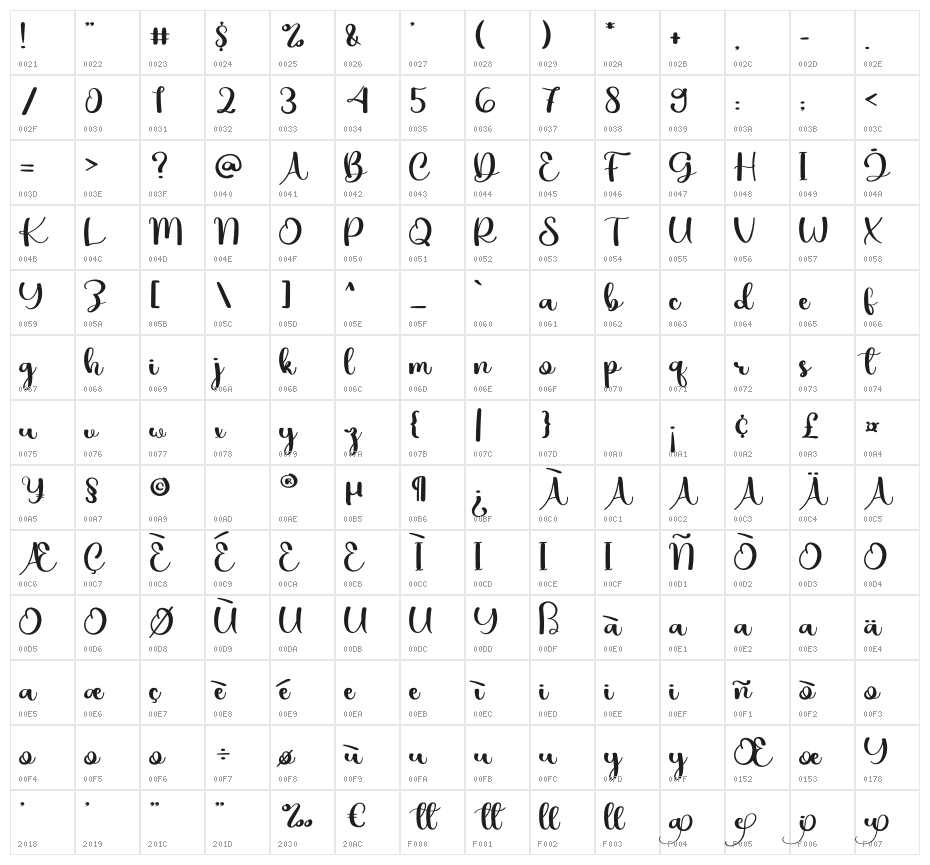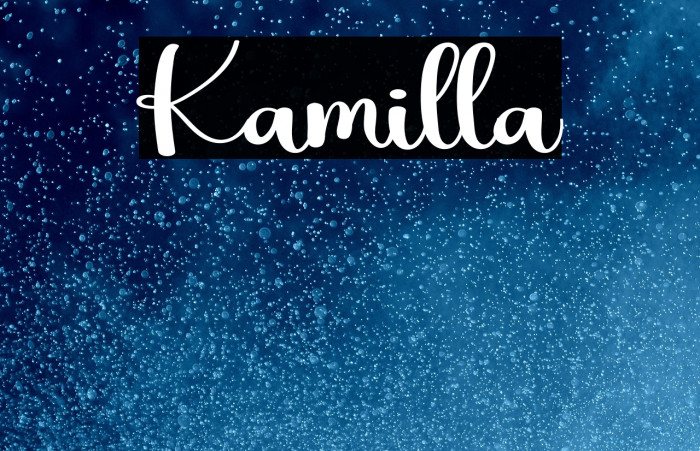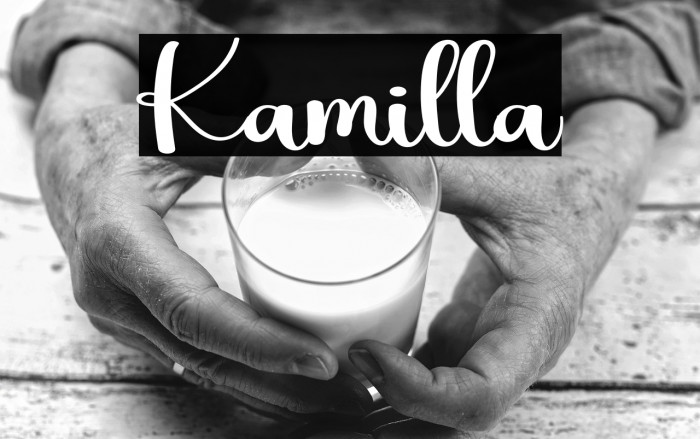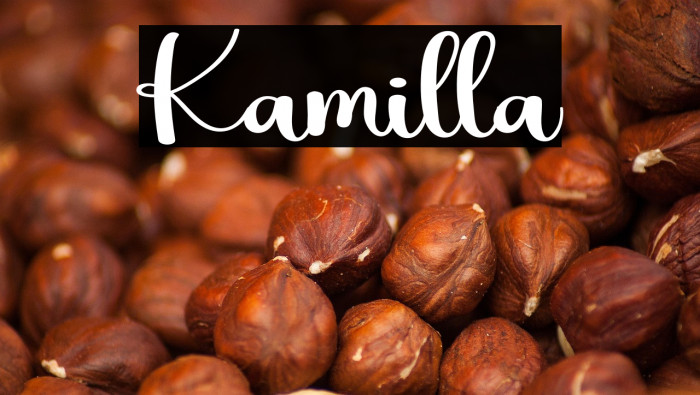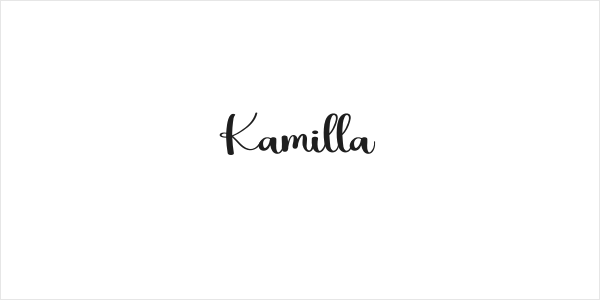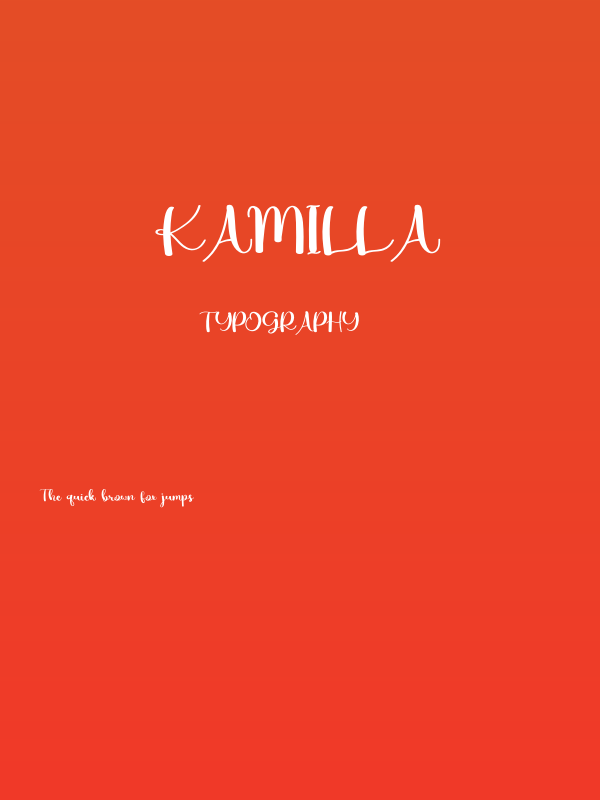
Kamilla Font
Kamilla Description
This font features a lively and expressive script style, characterized by its fluid and dynamic letterforms. The uppercase letters exhibit a graceful and flowing design, with elegant loops and swashes that add a touch of sophistication. The lowercase letters maintain a consistent rhythm, with smooth curves and a playful bounce that enhances readability. The numerals are bold and clear, matching the overall energetic feel of the font. Special characters are thoughtfully designed, integrating seamlessly with the rest of the typeface. This font's unique charm and personality make it suitable for a variety of creative applications.